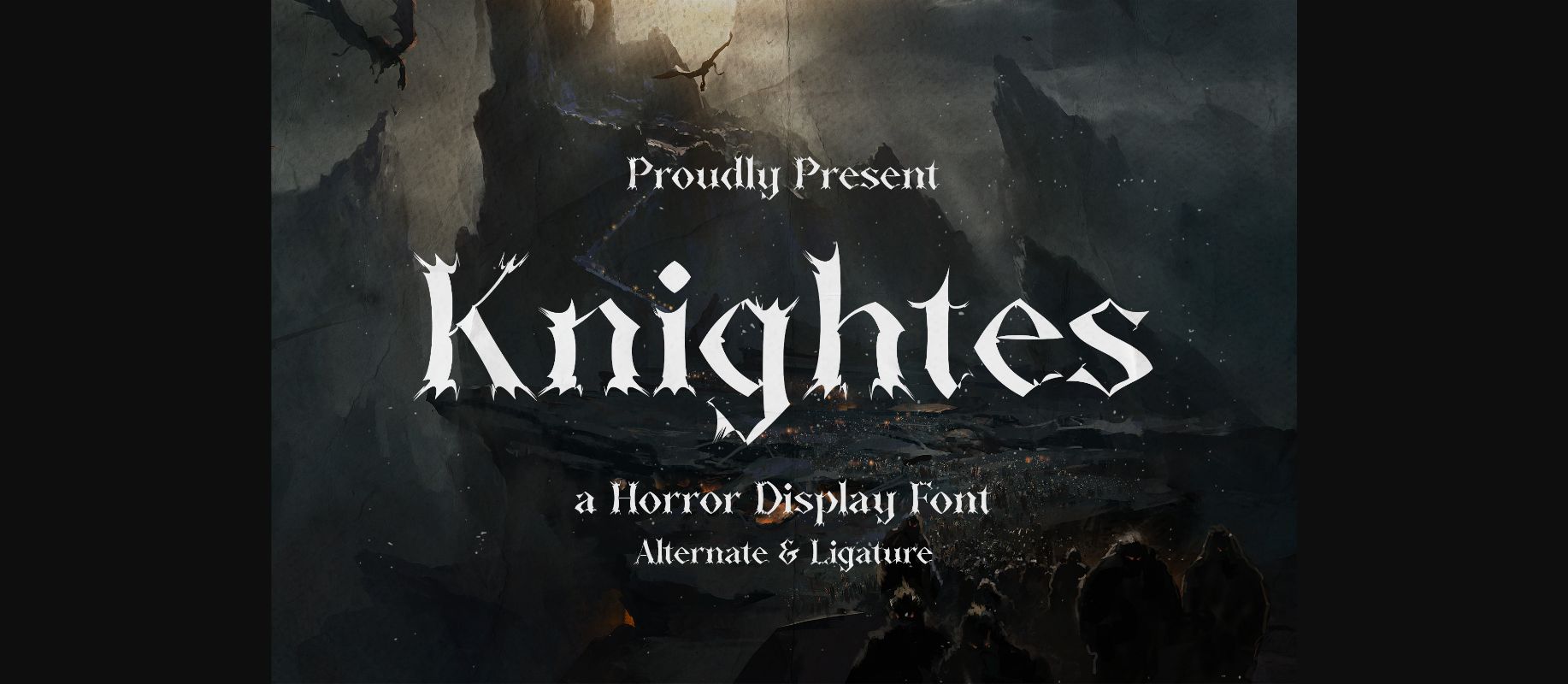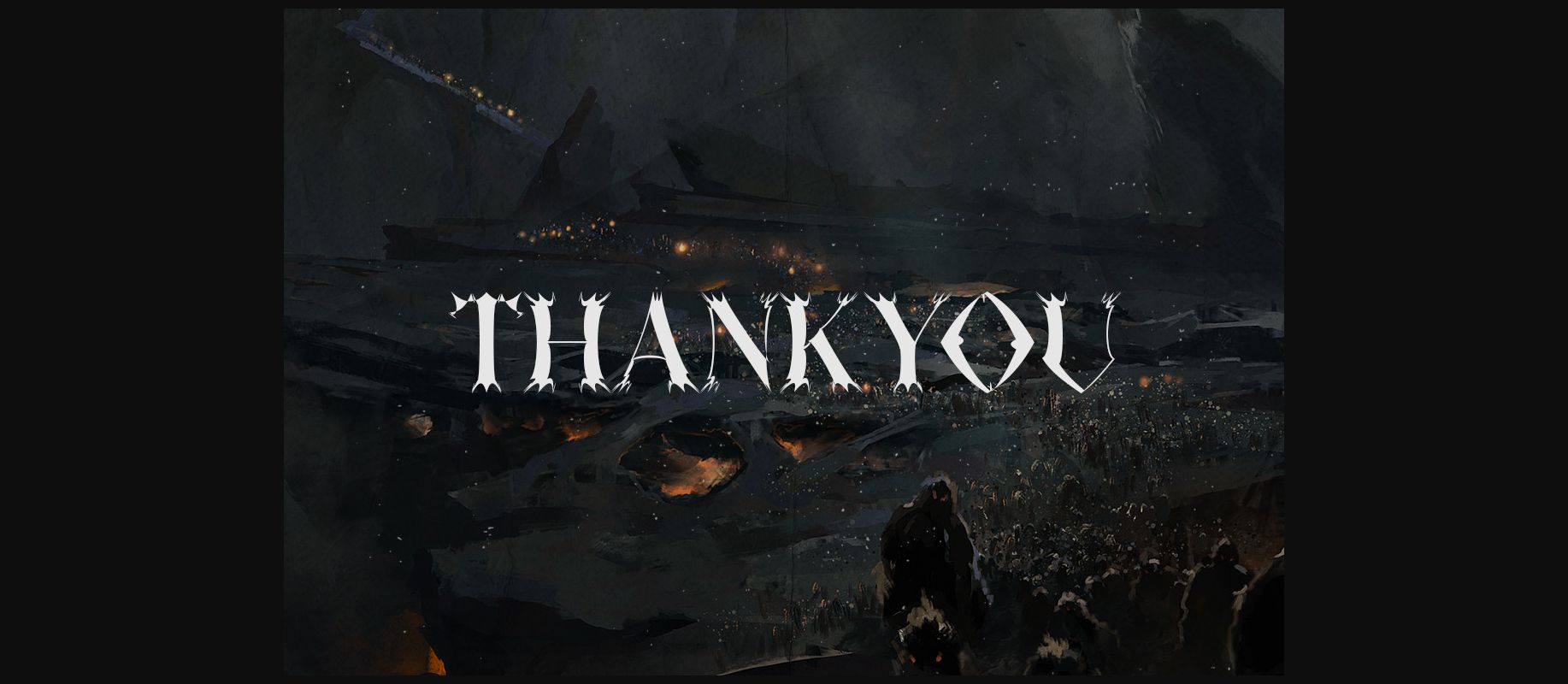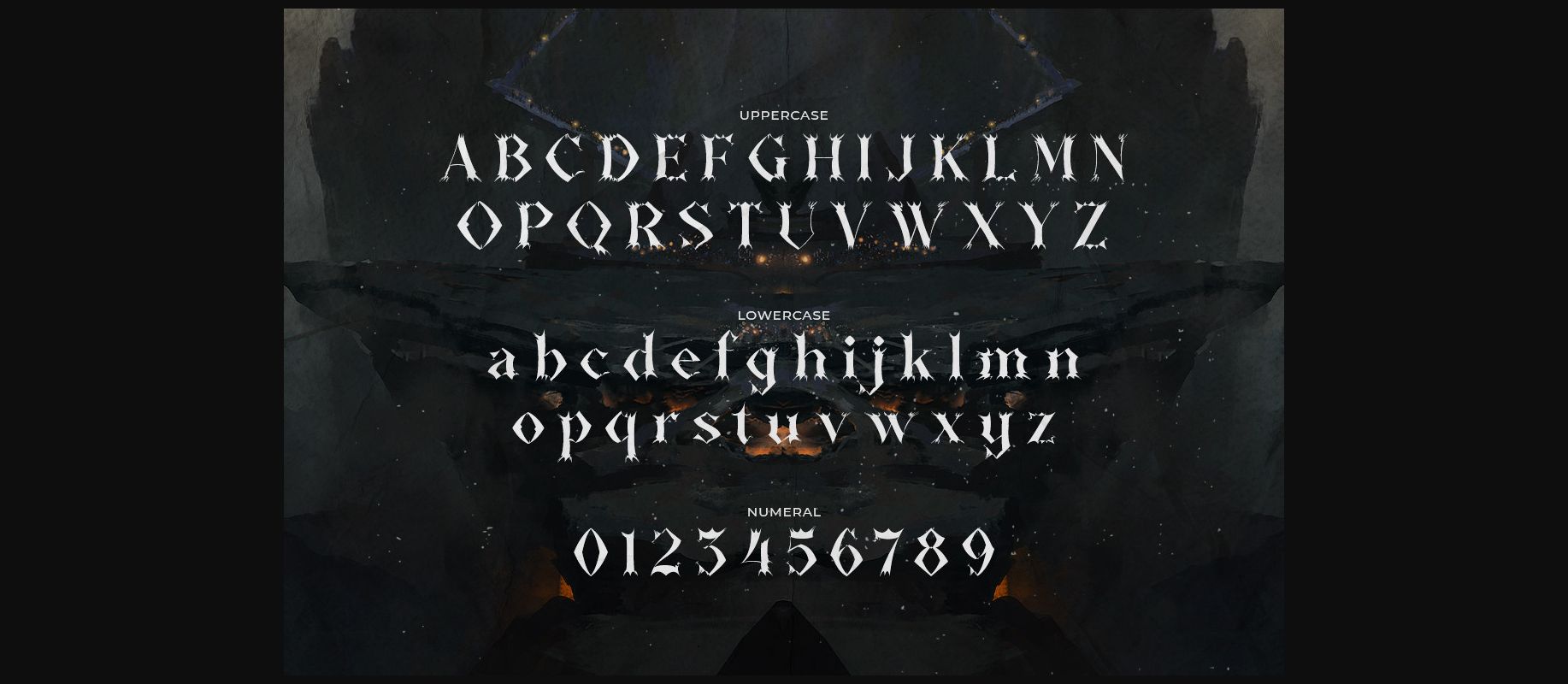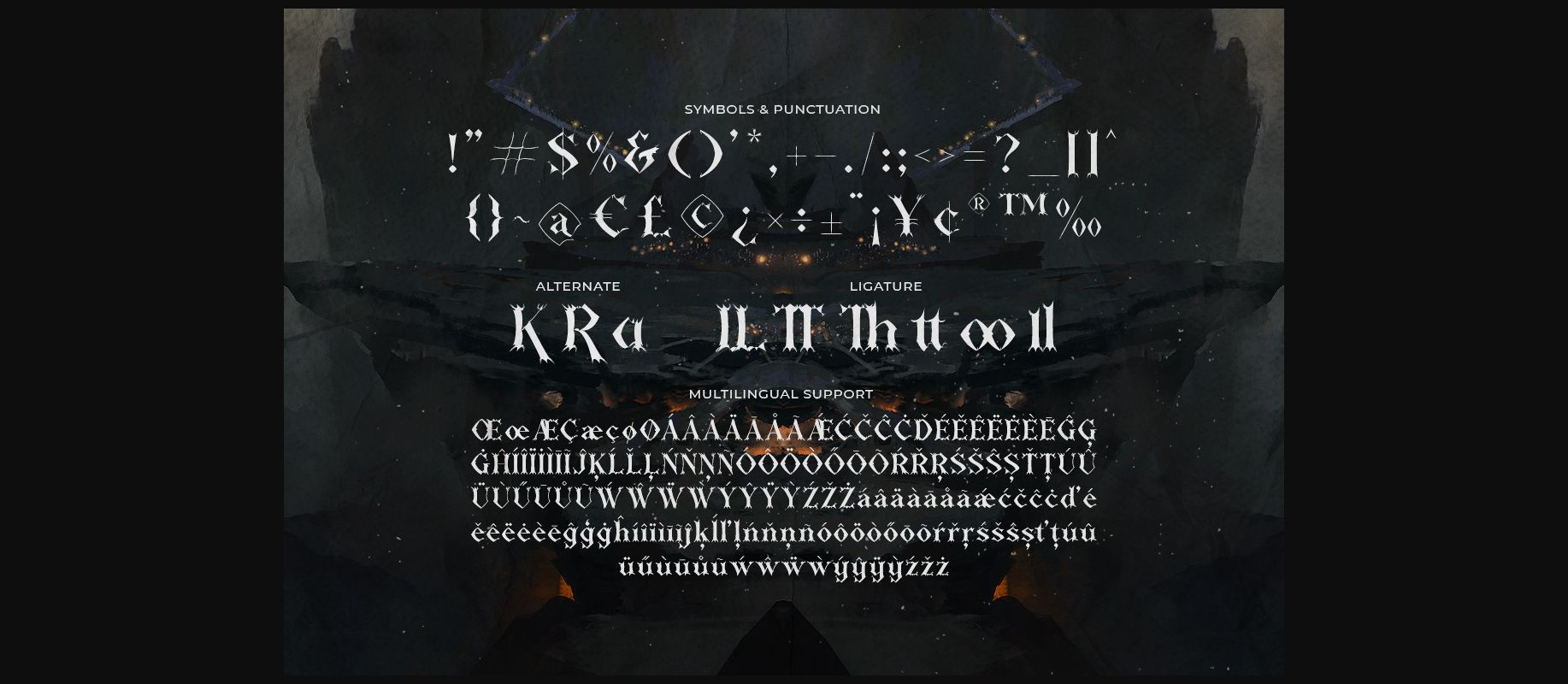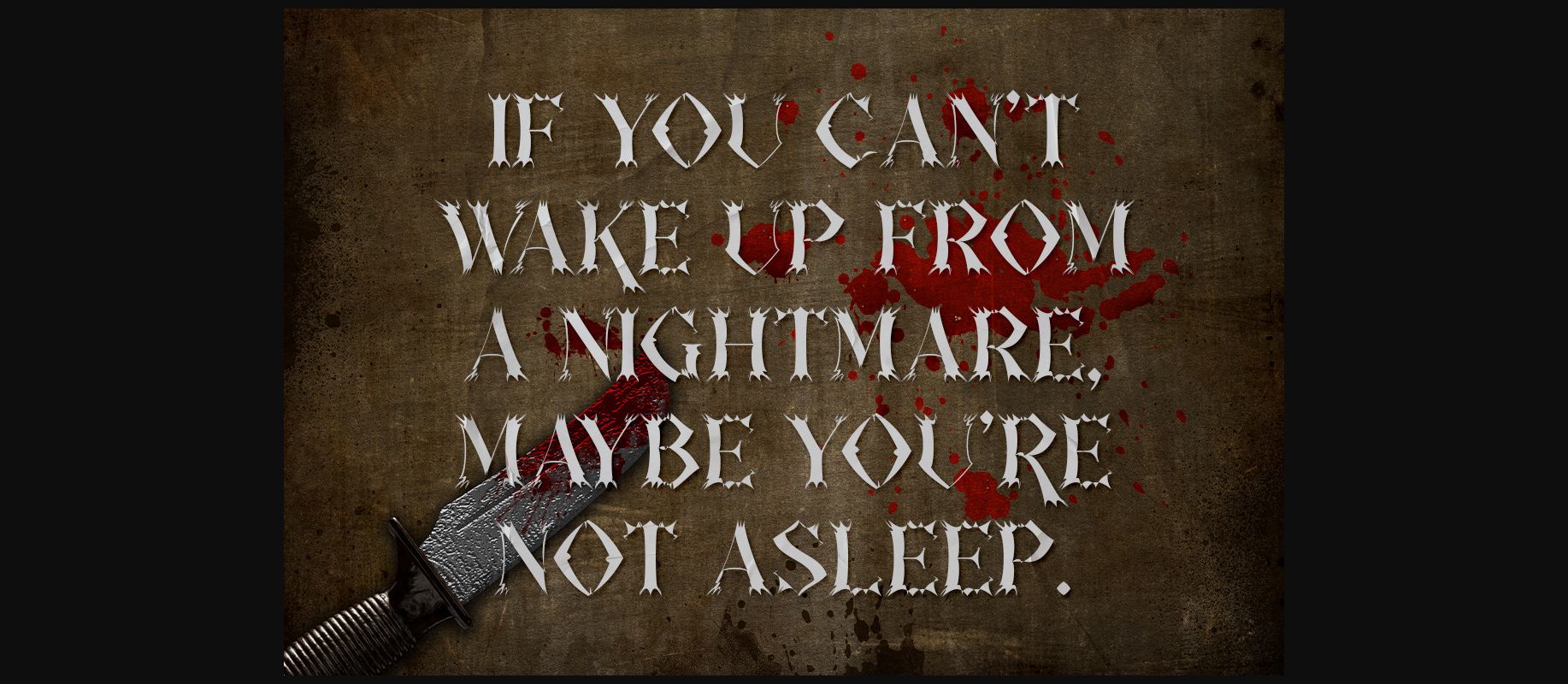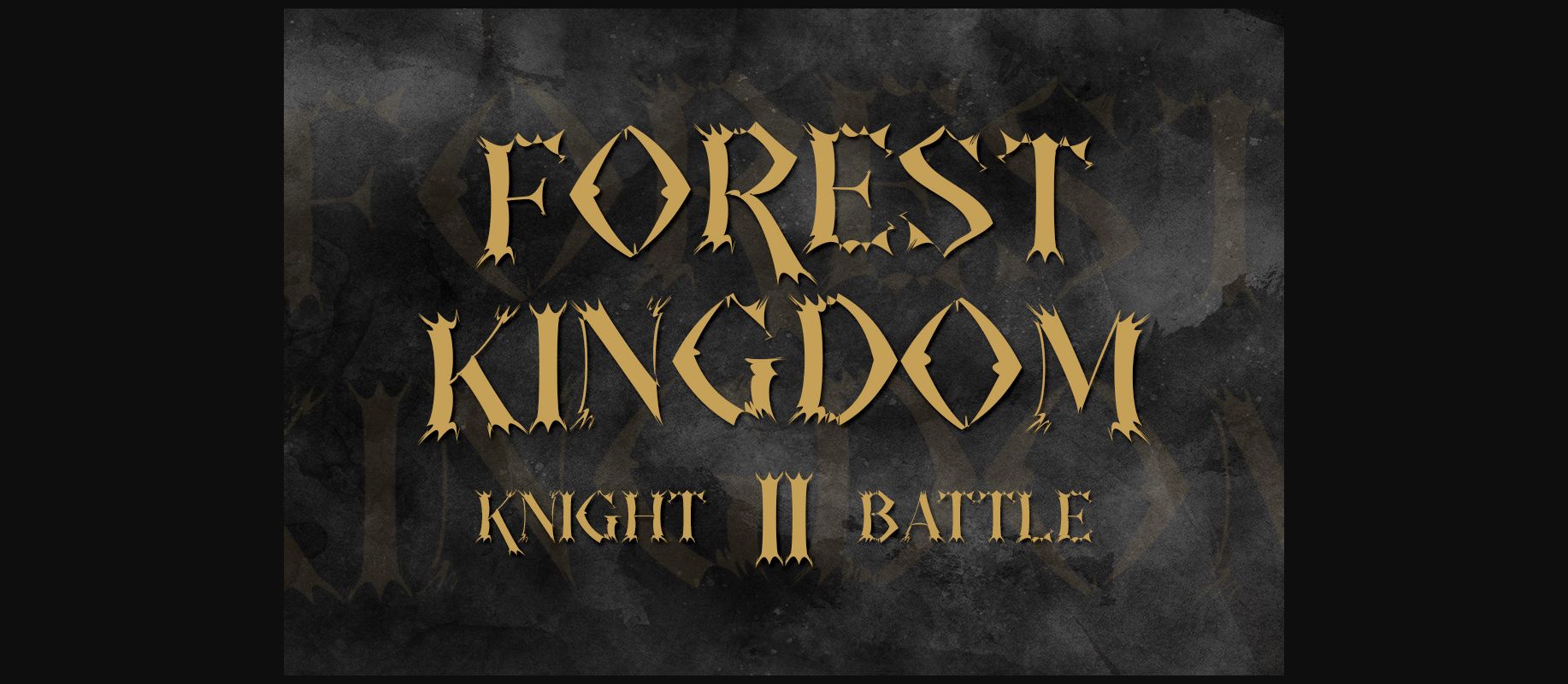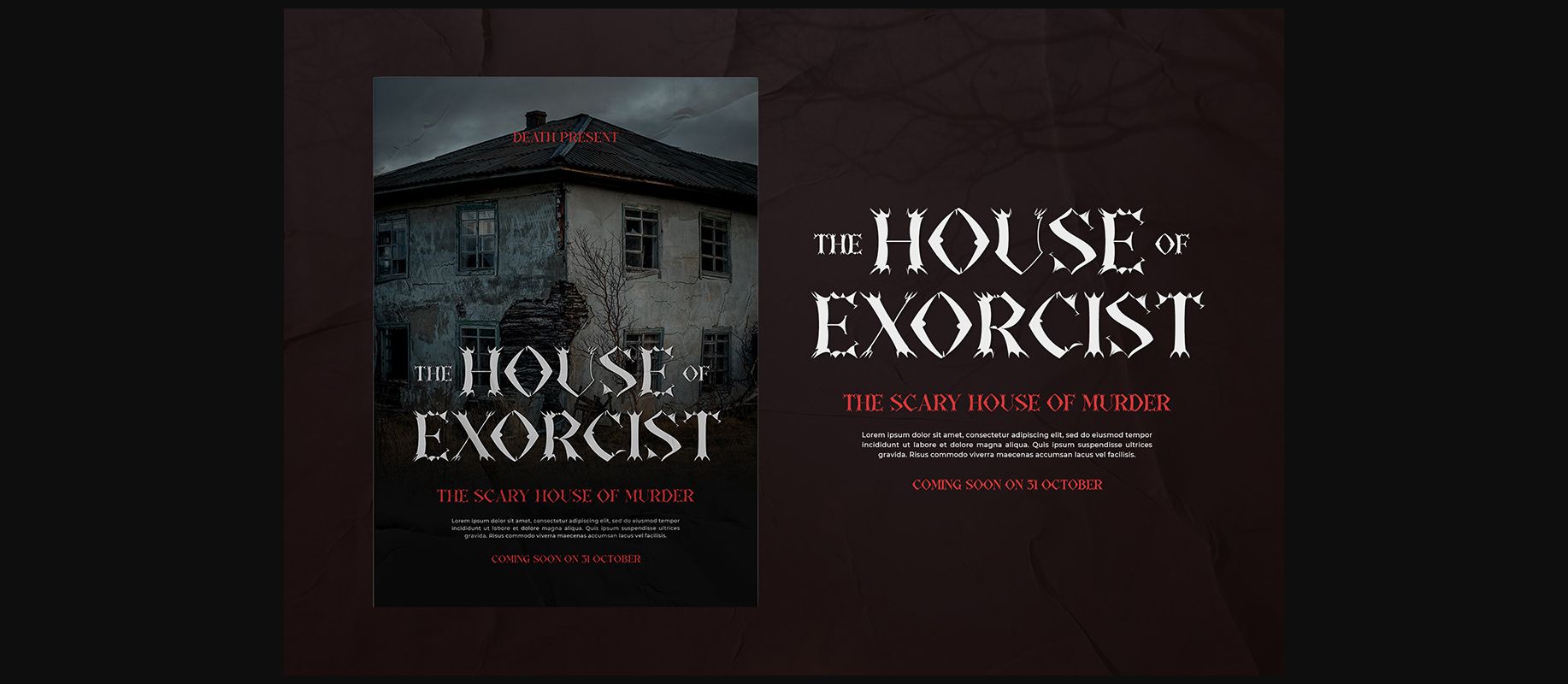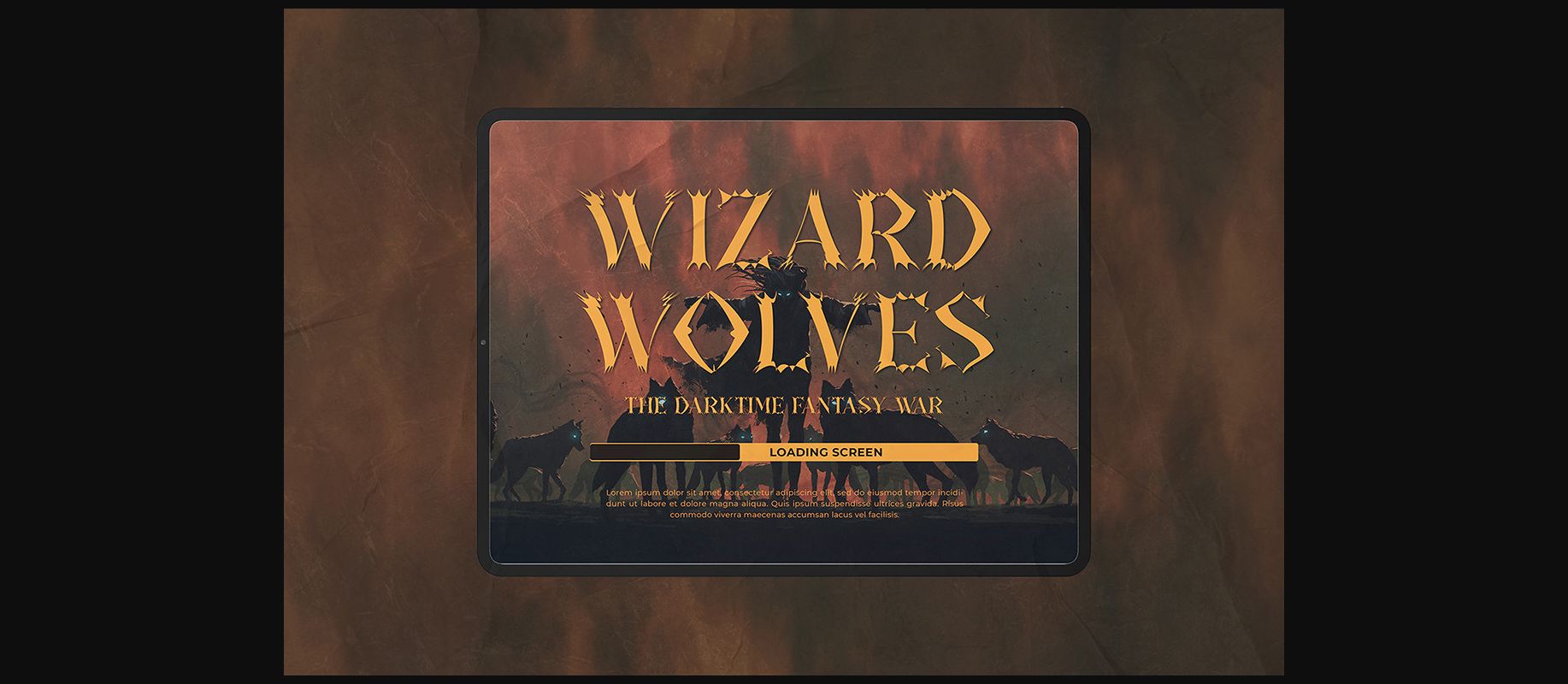
Knightes Font
About Knightes Font
Enter the realm of darkness with “Knightes” – a horror display font that will send chills down your spine.
With its menacing and Gothic letterforms, “Knightes” embodies the eerie and macabre. Each letter is meticulously crafted to capture the essence of horror, making it the perfect choice for haunted designs, horror movie titles, or any project that requires a touch of fright.
Summon the darkness and unleash your creativity with “Knightes” as it adds an air of mystery and suspense to your work. Whether you’re designing posters for a haunted house, creating spooky logos, or crafting chilling invitations, “Knightes” is the font that will give your designs a bone-chilling appeal.